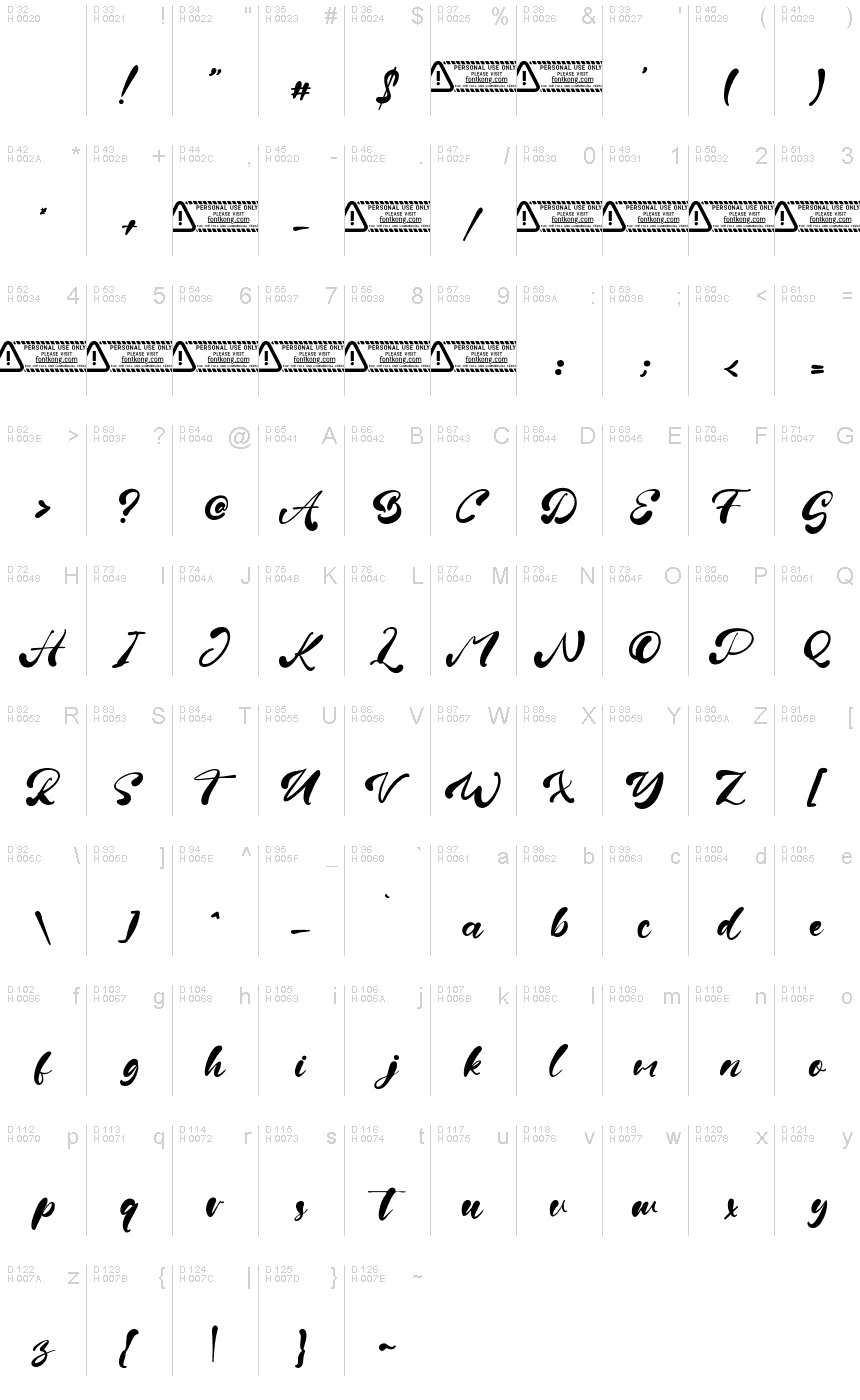
Fiona Brown
Fiona Brown by Kong Font is the perfect smooth brush typeface for projects that require a bold and confident touch. With its flowing strokes and modern design, this font can add elegance to any branding or advertising campaign. It's also a great choice for social media graphics, logos, and invitations. The bold weight of Fiona Brown makes it stand out on any platform, whether it's print or digital media. Get creative with this versatile font and elevate your designs to the next level!